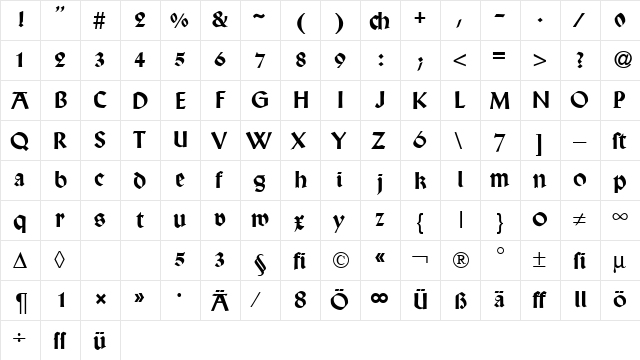
Wallaby DB Regular
Design Context for Wallaby DB Typeface
Wallaby DB is a composed and adaptable typeface that performs quietly and consistently across a wide range of design contexts.